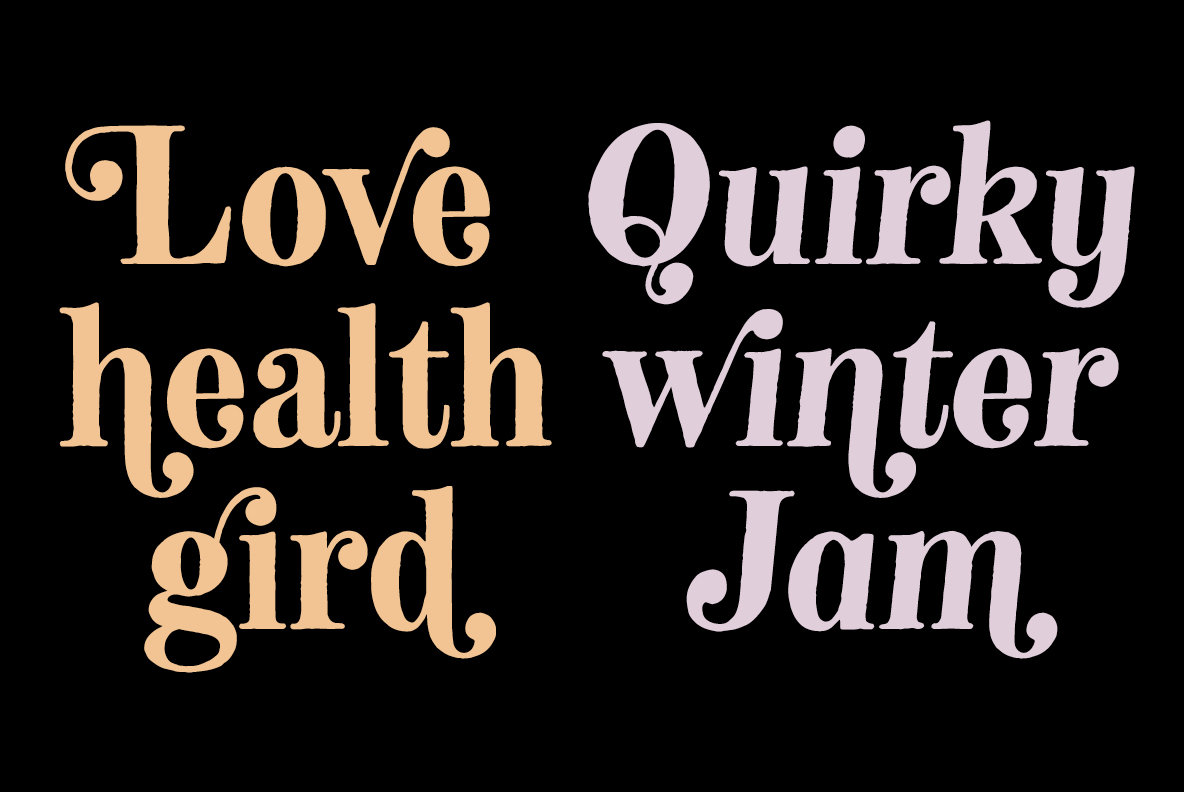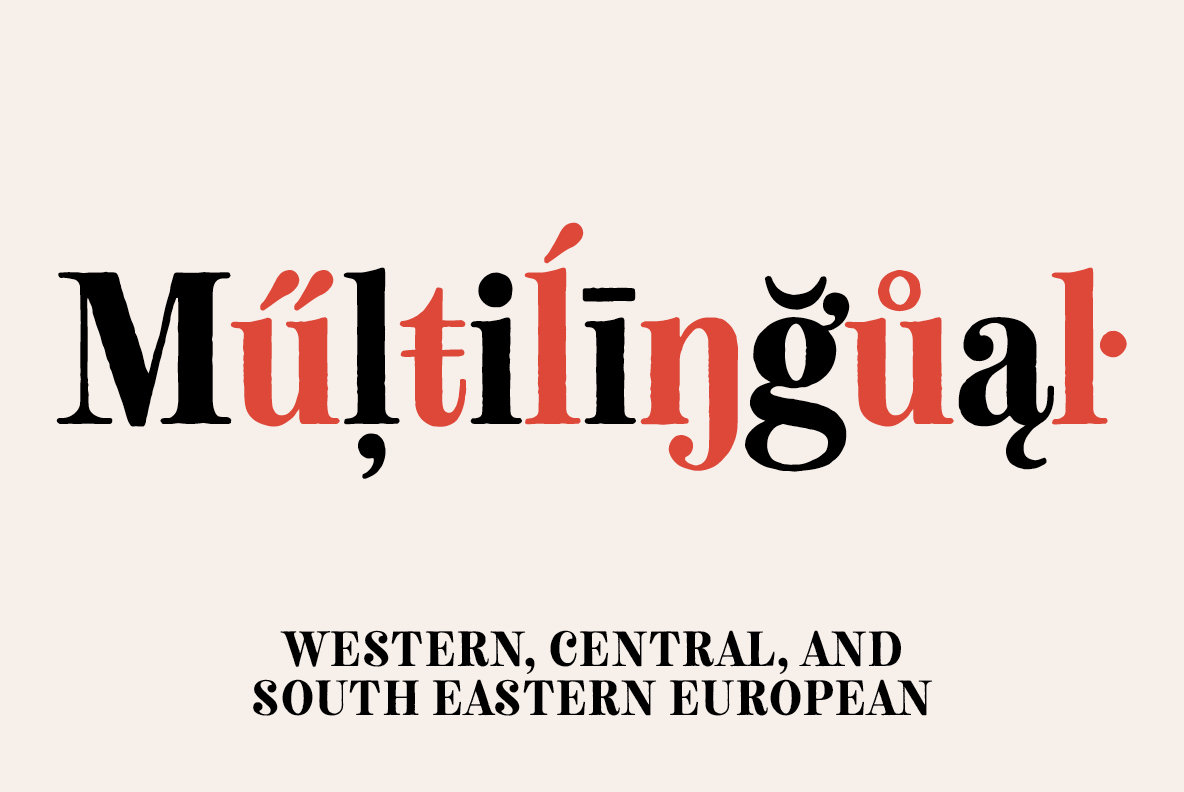
Neato Serif Font
Neato Serif is a hand drawn, quirky serif font in regular and italic styles. It features stylistic alternates, standard and discretionary ligatures, and swashes to add options and flair to your typography. The typeface has a unique blend of sophistication with its high contrast of thicks and thins and also playfulness with the distinct ball terminal characters—especially evident in the lowercase "e". It is slightly condensed and great for display headlines, titles, packaging, branding, and more.
Features include: stylistic alternates for more options; swash characters for more personality in both upper and lowercase; standard ligatures for classic combinations like "ffi" and "tt" and more; discretionary ligatures for playful combinations like "ri" and "gi" and more.
All alternates, ligatures, and swashes are PUA-encoded for more accessibility in a variety of programs. This font has extensive Latin language support for Western, Central, and South Eastern European with over 500 glyphs in each font.